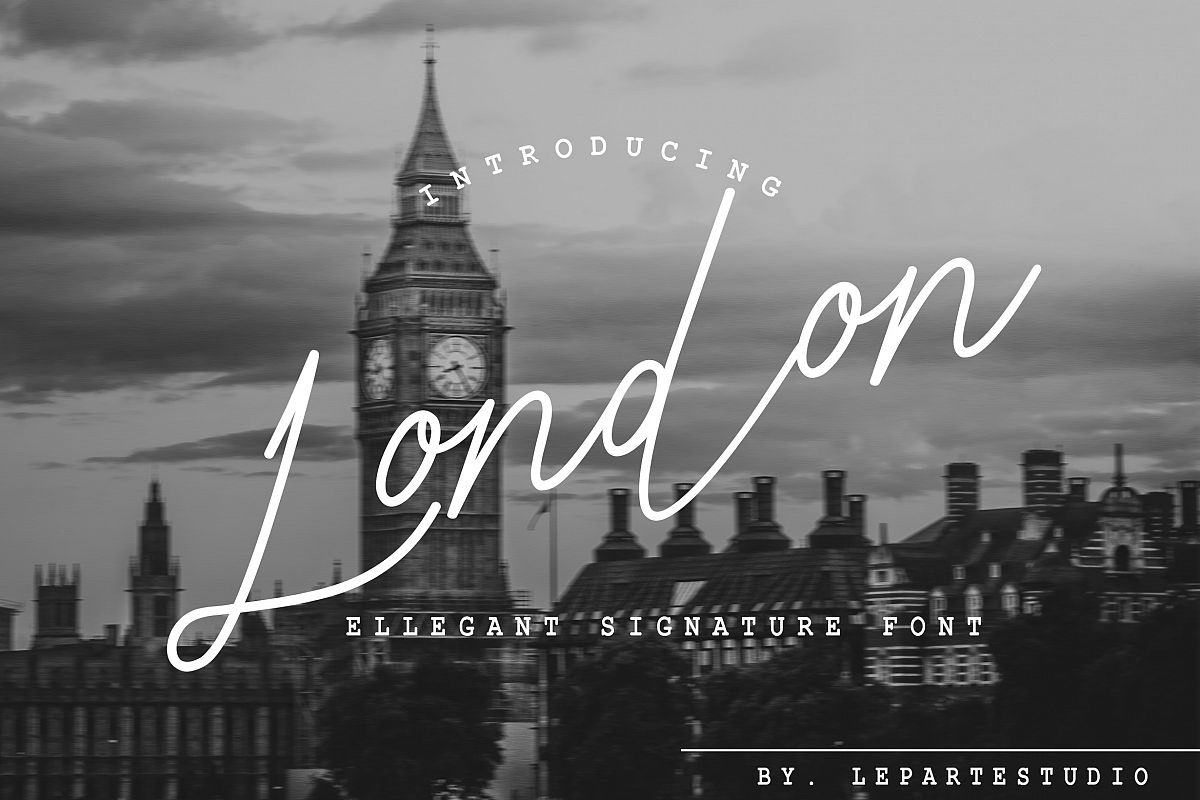
London Ellegant Signature
The London Signature is an amazing Ellegant Signature font. It was made with perfect precision for every single curve that was build with a horizontal, vertical path & smooth.
London signature script font which stylish natural handwritten font with beautiful curve in every single corner. This font is so fashionable & elegant and perfect for photography, branding, signature and logo .
• More than 175 of glyphs
• Ligature & Include Multilingual support